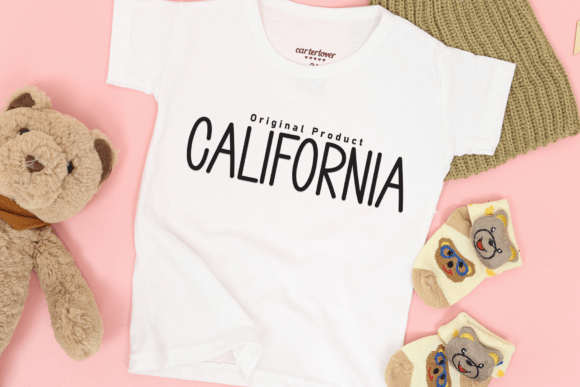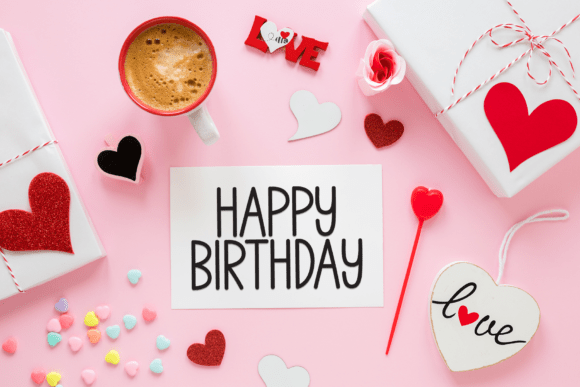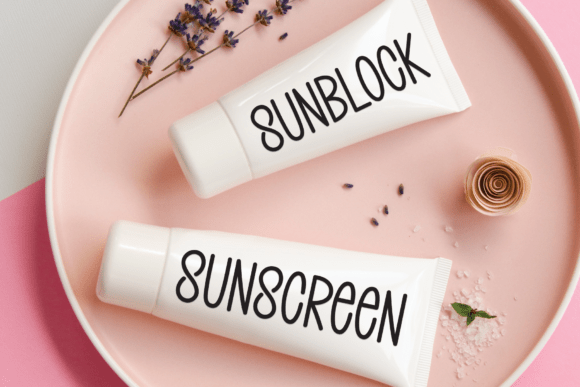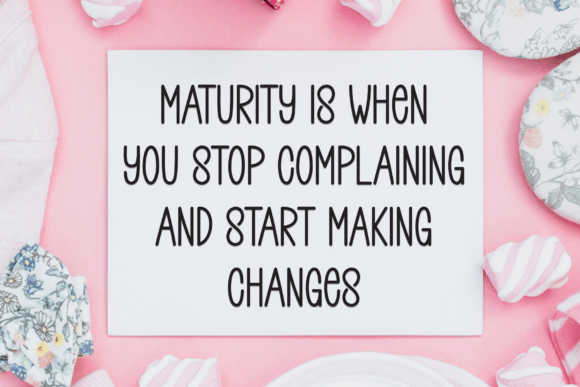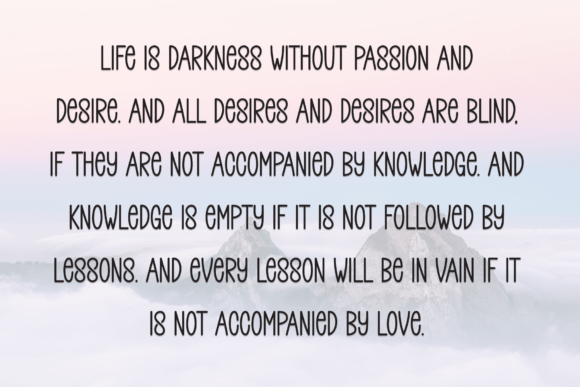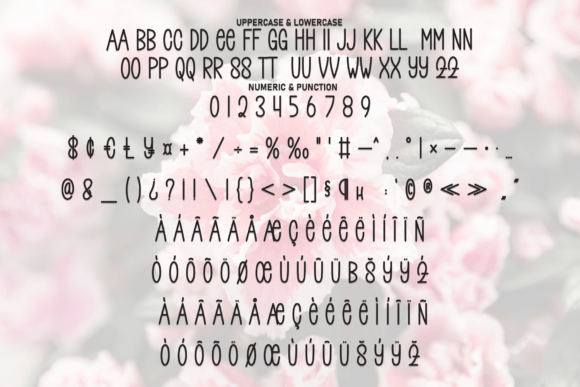
Discover the Delightful Charm of Angela Flower Font
Have you ever been in the midst of working on a design project, only to find yourself stuck on one thing: the perfect font? I recall a particularly frustrating experience while designing a wedding invitation for a dear friend. The project required a font that was both elegant and playful, but everything I tried seemed to fall flat. That was until I stumbled upon the Angela Flower Font, a uniquely handwritten display font that instantly captured the essence of what I was looking for.
A Font that Blooms with Personality
The Angela Flower Font is coated in the soft allure of sweetness and congeniality, making it an eminent choice for projects that require a touch of whimsy and delight. Its adorable nuances are perfect for wedding invitations, greeting cards, and any other design that needs a playful stroke of creativity. This jovial font invites you to dive into its delightful charm and allow it to be the expressive and enjoyable attribute that your design interweaves with.
- ✨ Unique and handwritten feel that adds a personal touch to any design
- ✅ Extensive range of OpenType features, glyphs, and stylistic alternates
- 💕 Perfect for designs that require a touch of sweetness and congeniality
- 🎉 Highly versatile and can be used for a variety of projects, from wedding invitations to greeting cards
While the Angela Flower Font is a stunning addition to any design, there are a few things to keep in mind. ⚠️ Some users may find that the font’s playful nature doesn’t suit more formal designs. Additionally, 🤔 the font’s extensive features may require some time to get used to, especially for those new to OpenType features and glyphs.
The Designer Inspiration Behind Angela Flower Font
The Angela Flower Font was inspired by the delicate and intricate designs found in nature. The font’s creator sought to capture the essence of a whimsical garden, where flowers bloom and personalities shine. The result is a font that is both elegant and playful, perfect for designers who want to add a touch of personality to their work.
| What makes Angela Flower Font unique? | Angela Flower Font is a uniquely handwritten display font that combines elegance and playfulness, making it perfect for designs that require a touch of whimsy and delight. |
| Is Angela Flower Font suitable for digital designs? | Yes, Angela Flower Font is highly versatile and can be used for both print and digital designs. |